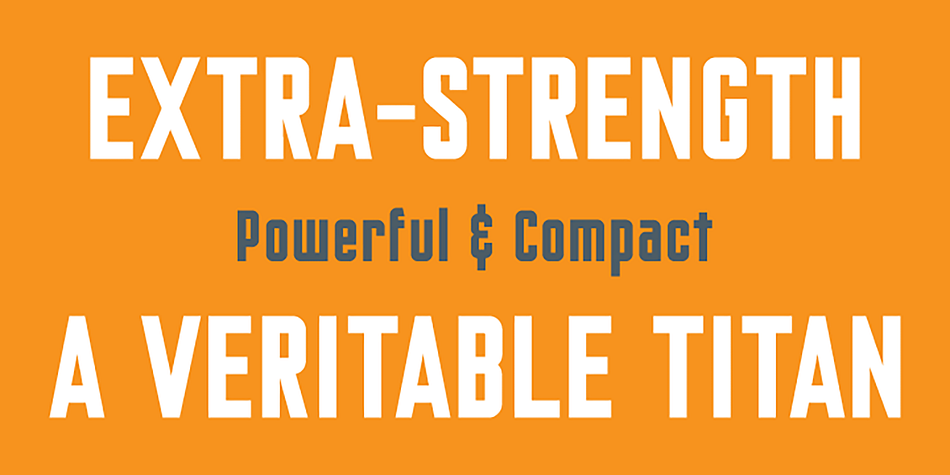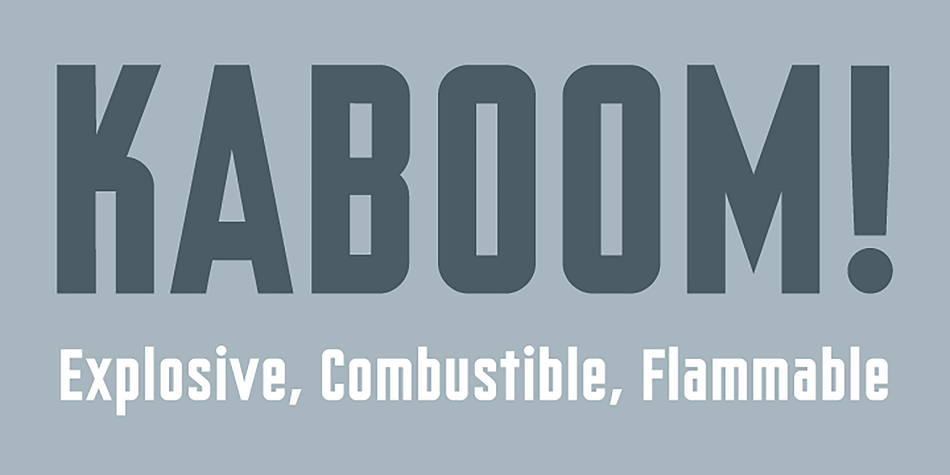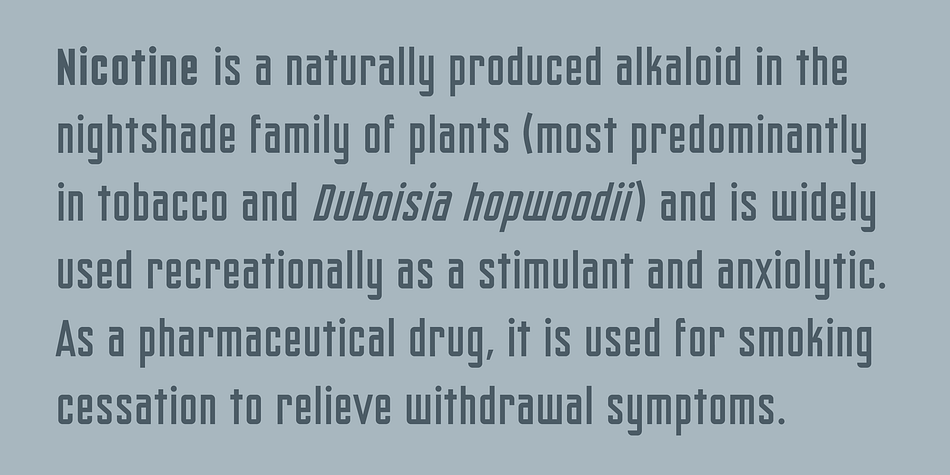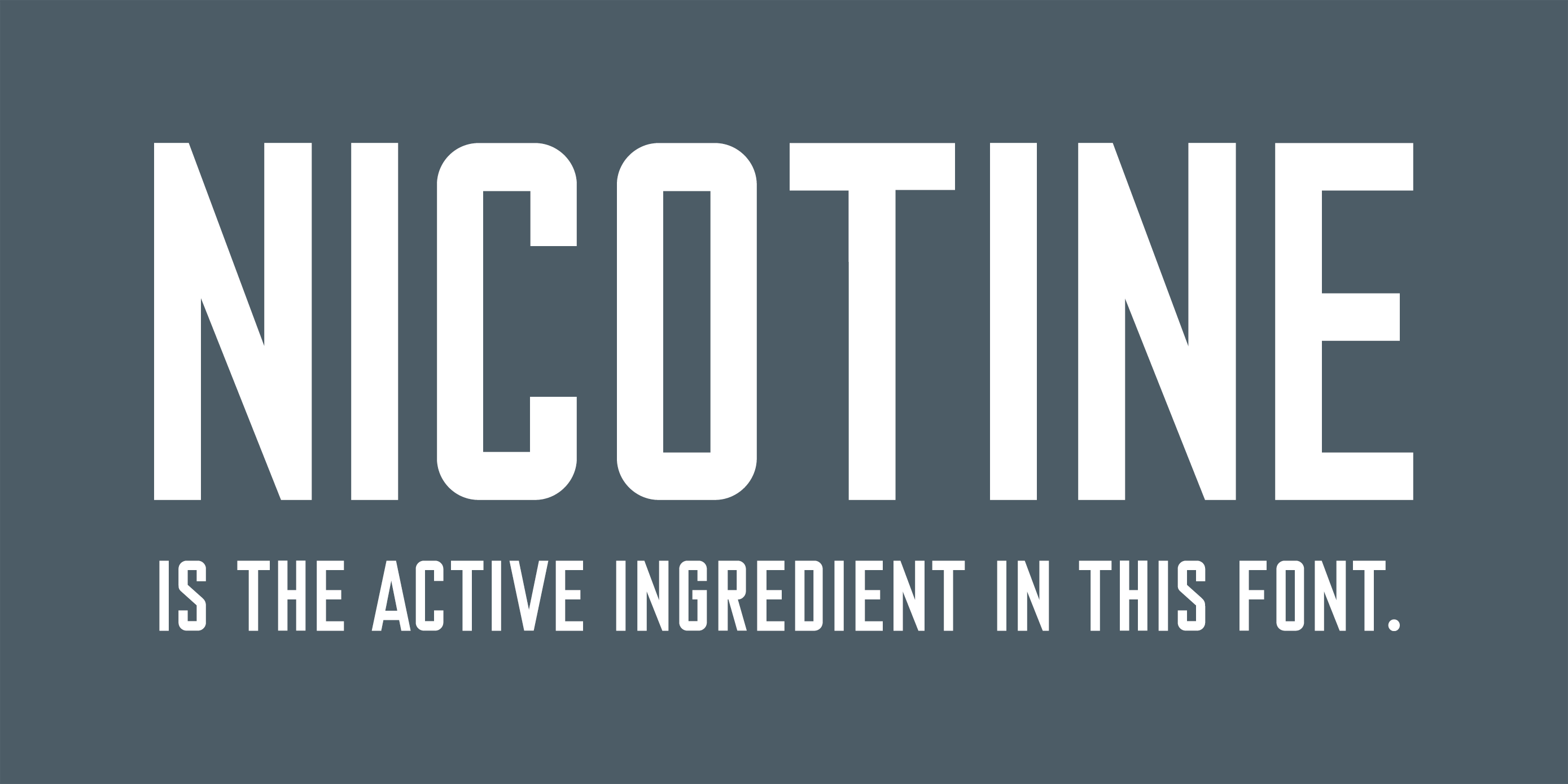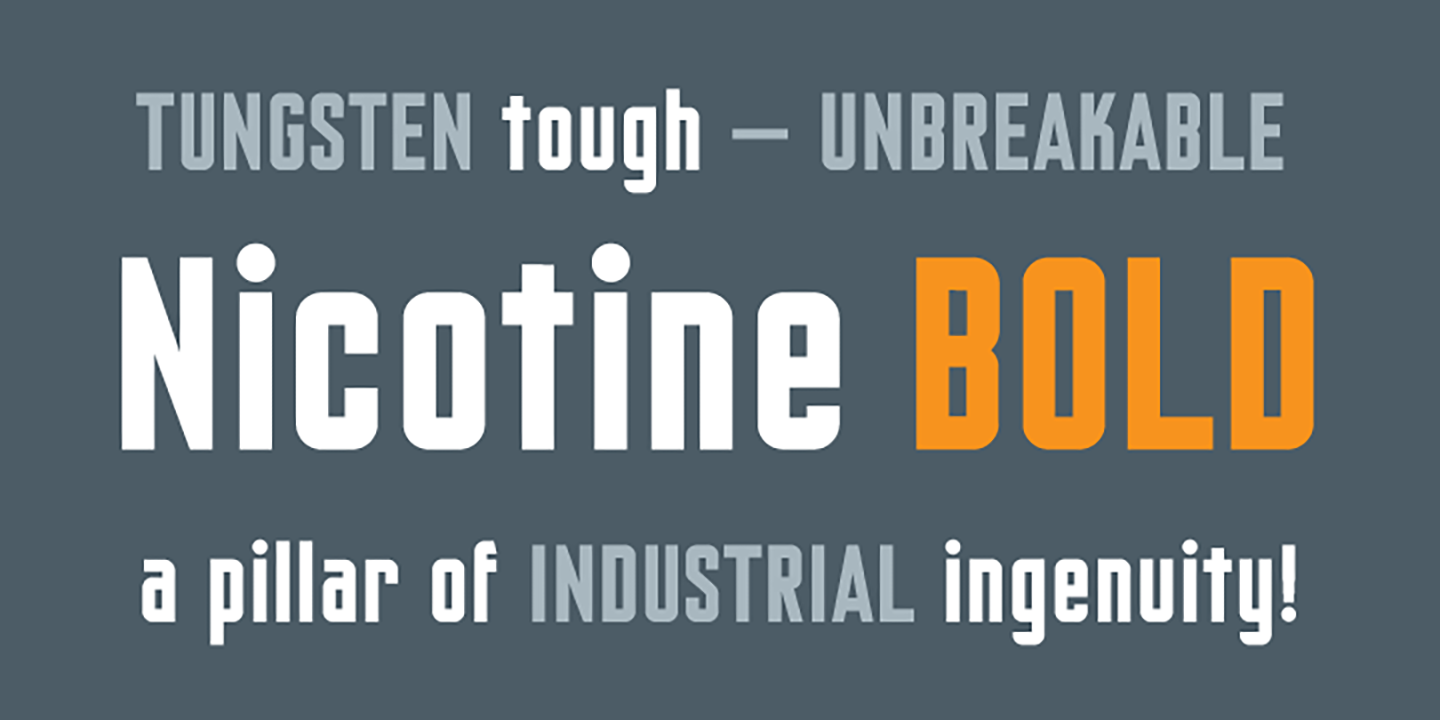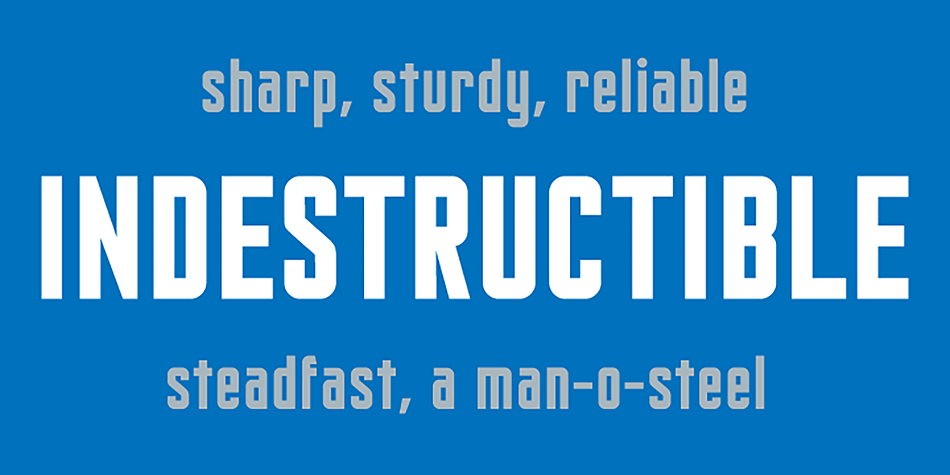
Nicotine
Designed by Chank Diesel, Nicotine is a sans serif font family. This typeface has four styles and was published by Chank Fonts.
Need to cram a zillion words on to a single page? Nicotine is your vice. Cram it. Nicotine Jazz is a bit more musical as it trades uppercase and lowercase letters for an interesting unicase effect. Italic can be used for extra emphasis. The condensed nature of the Nicotine fonts allows for impressive use at larger, poster sizes. Another interesting tidbit? The I in Nicotine is a silhouette of a traditional filtered cigarette; that’s how the font got its name.